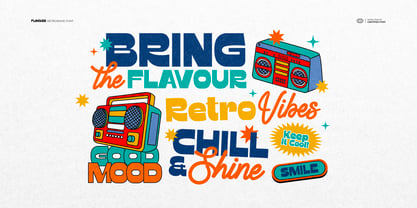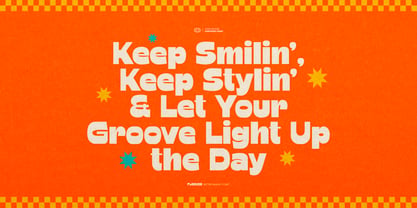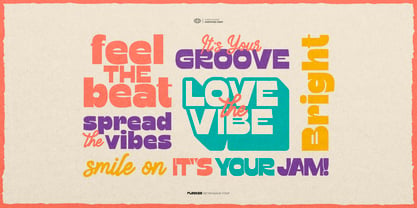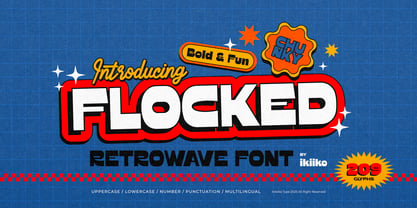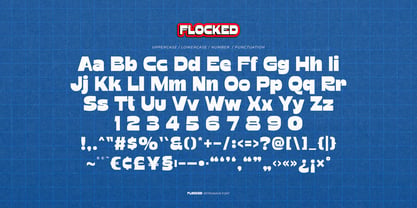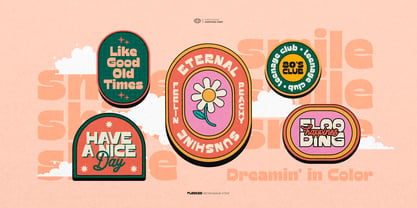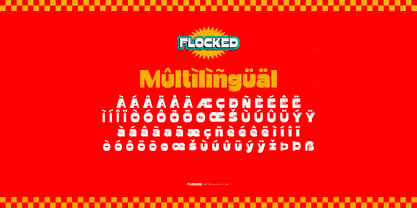
Flocked
La familia tipográfica Flocked fue diseñada por Andhika Pradana y publicada por IKIIKOWRK. Flocked contiene 1 estilos.
Proudly present Flocked - Retrowave Font, created by ikiiko.
Flocked is a bold and stylish sans serif typeface that captures the retro charm of the 80s with a unique twist. Blending vintage aesthetics and cartoon-inspired curves, this font features both bold and thin styles to give your designs maximum versatility and impact. Whether you're crafting a nostalgic logo, a funky poster, or a chill design, Flocked brings the perfect vibes. With its groovy lines and dynamic energy, Flocked radiates a chill 80s vibe that’s ideal for branding, social media graphics, and retro-themed projects.
This font is perfect for a retro poster, streetwear design, magazine layout, book cover, packaging, food & beverages, or any design that craves that unforgettable 80s vibe & chill stuff
• Uppercase & Lowercase
• Numbers & Punctuation
• Multilingual Support